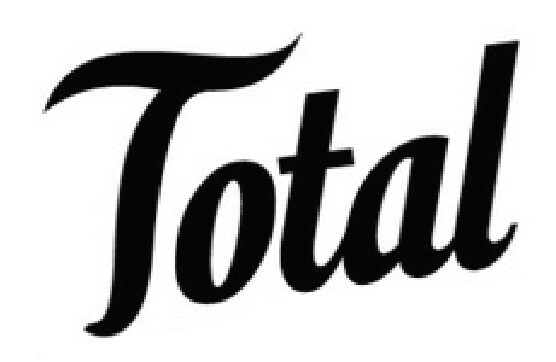
Motion Picture Font → Total
Calligraphy style font.
Motion Picture Font
Perfect. I had a feeling the "T" was a different font than the "otal" but wasn't sure. And this proves to be the case. This helps a lot, thank you!